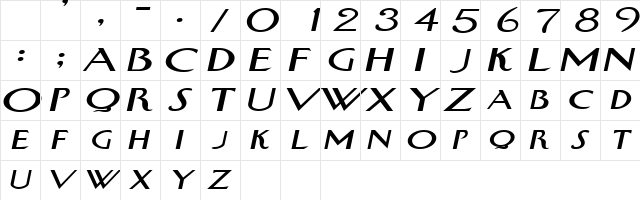
SwanExtended Italic
Design Context for SwanExtended Typeface
SwanExtended takes a measured approach to typography — its balanced proportions and neutral character make it a reliable workhorse for both digital and print work. The dynamic lean of this cut emphasises speed and emphasis in any layout.
Pro Tip: Try SwanExtended for annotation and caption copy alongside an upright companion — the contrast in angle creates a dynamic but ordered typographic system.